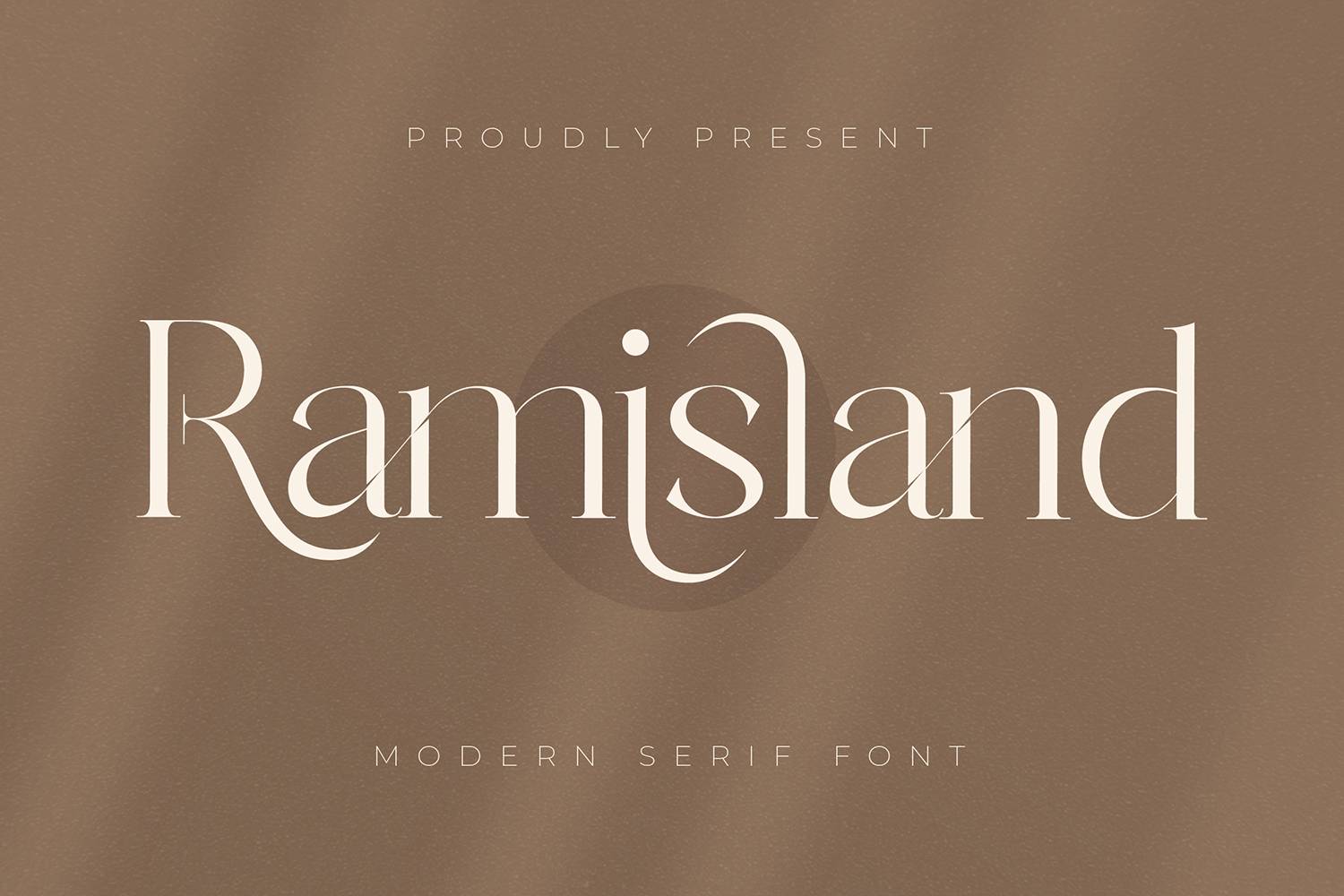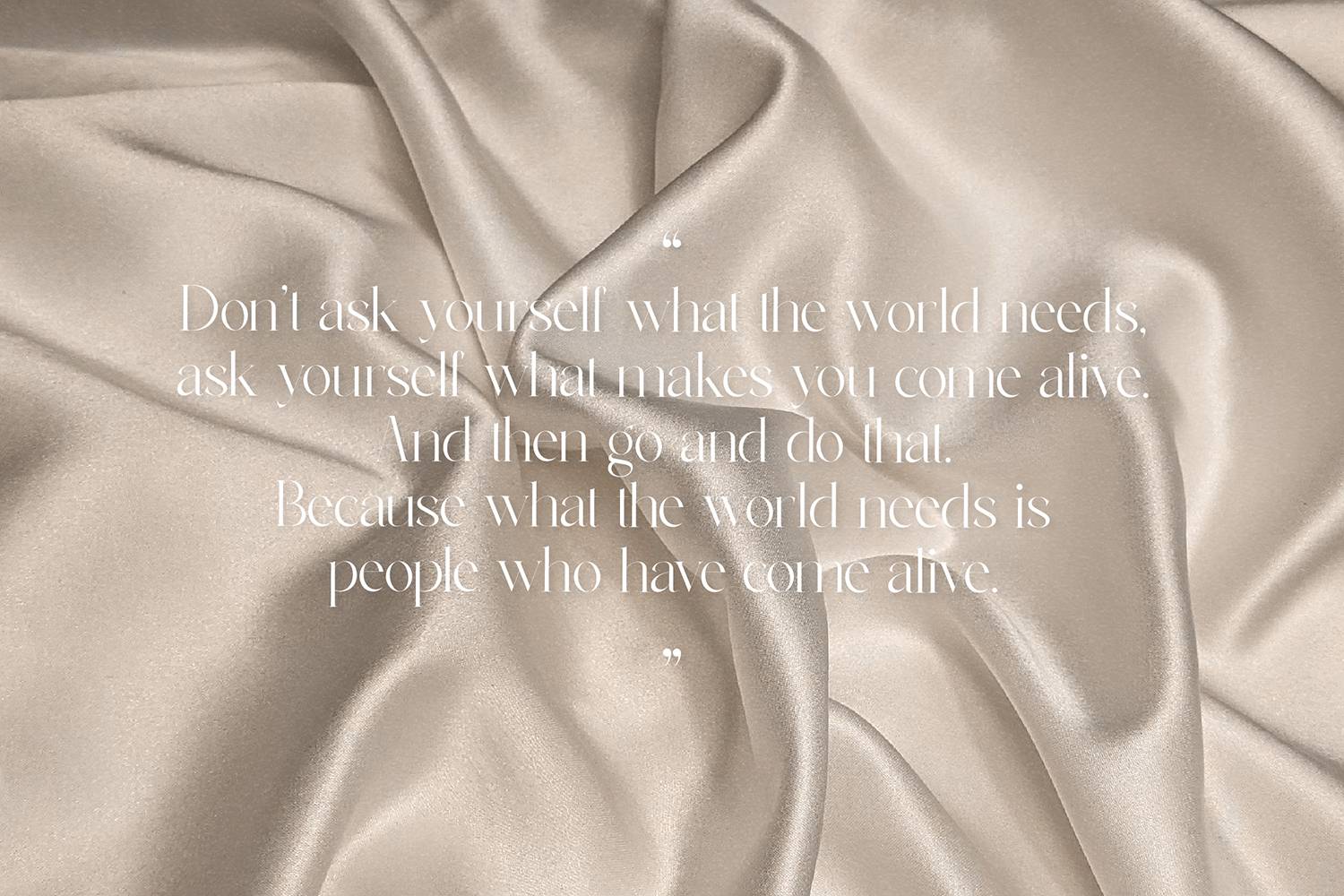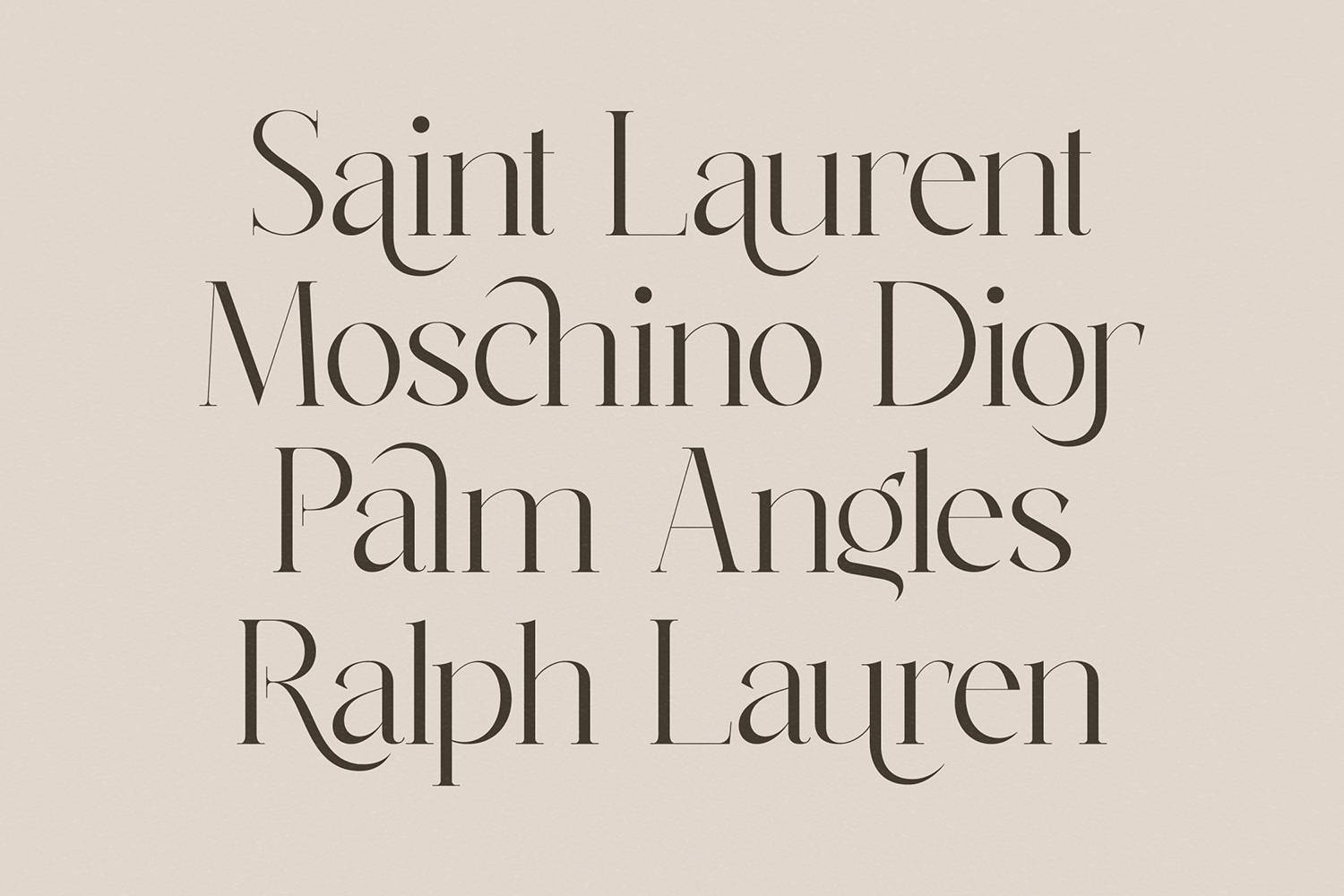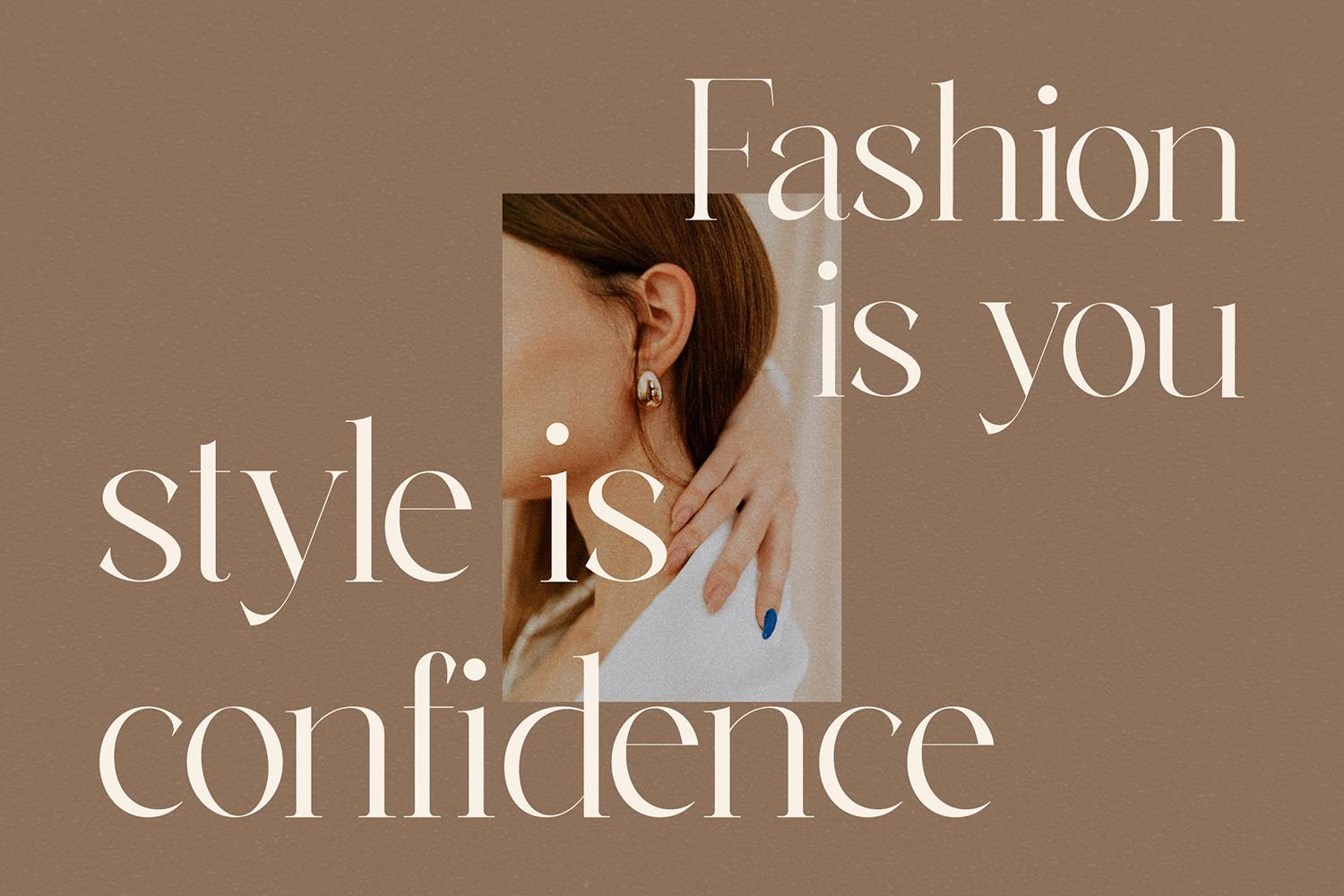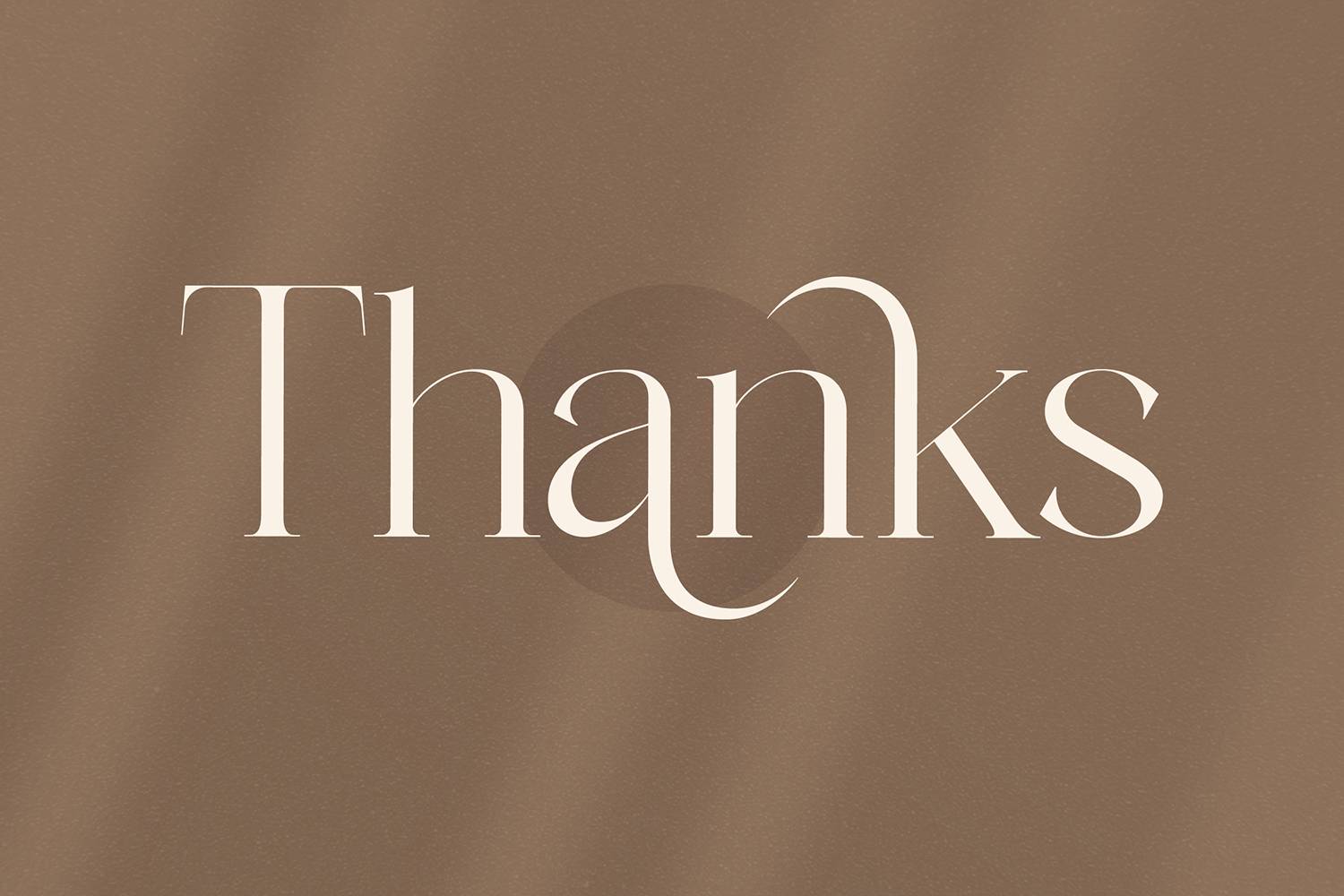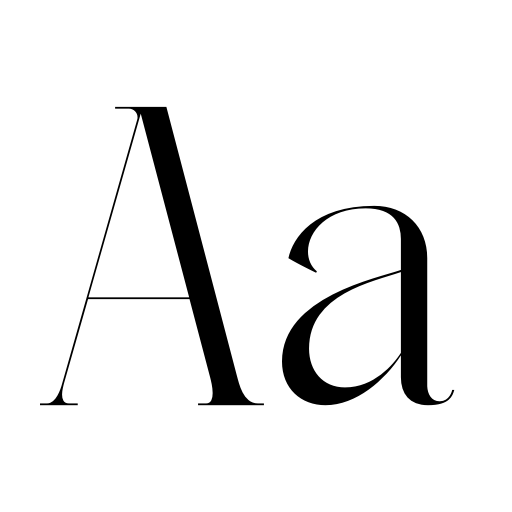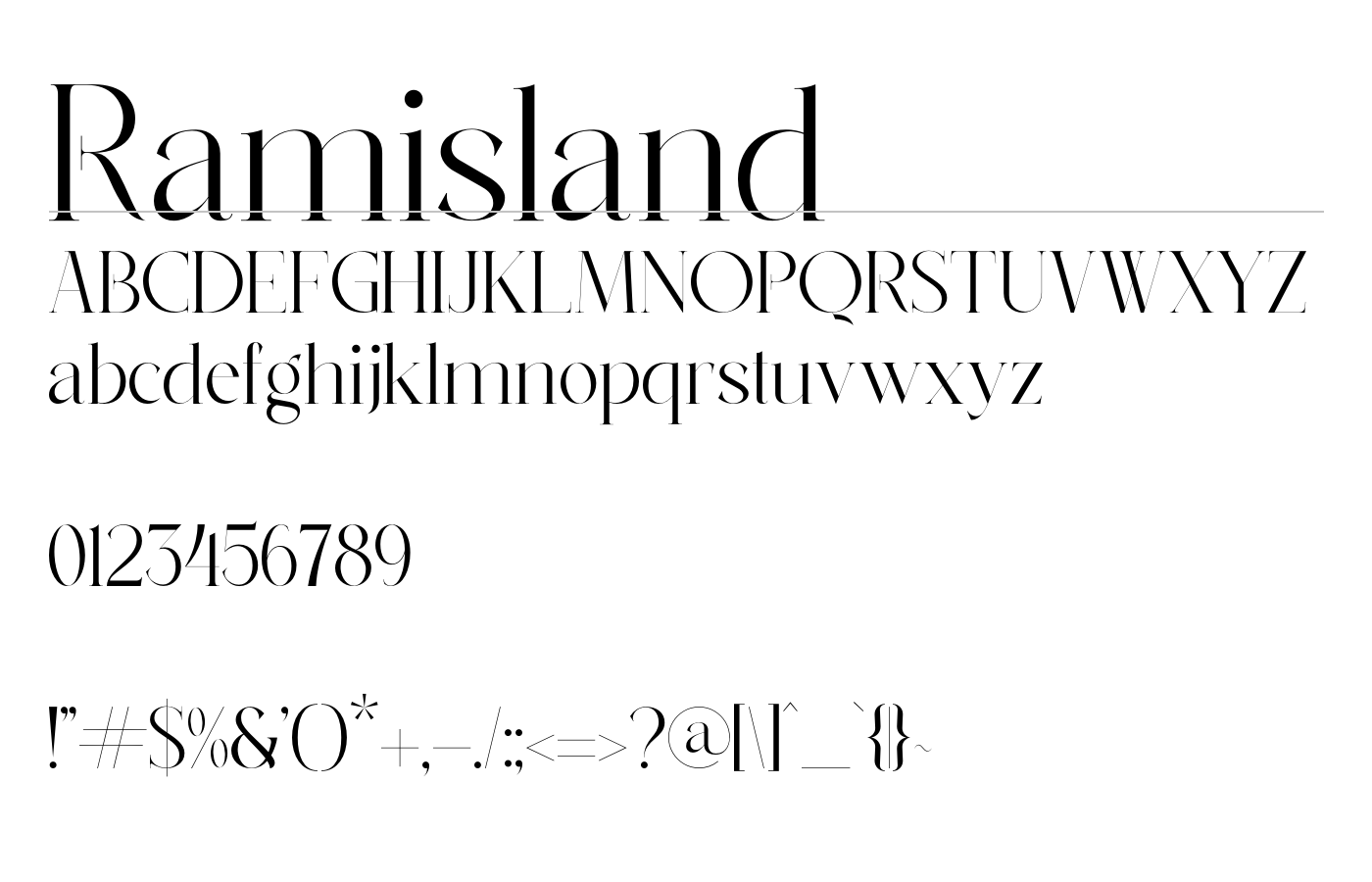
Ramisland is a refined serif font with elegant, high contrast strokes and a tall, slender appearance that conveys sophistication and modern luxury. Its thin serifs and delicate letterforms make it ideal for upscale branding, editorial headlines, and fashion packaging where a stylish and graceful tone is desired. This font works best in large sizes to showcase its intricate details and timeless character.
Ramisland Font